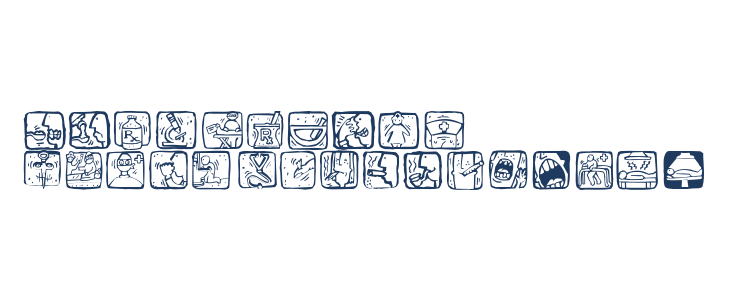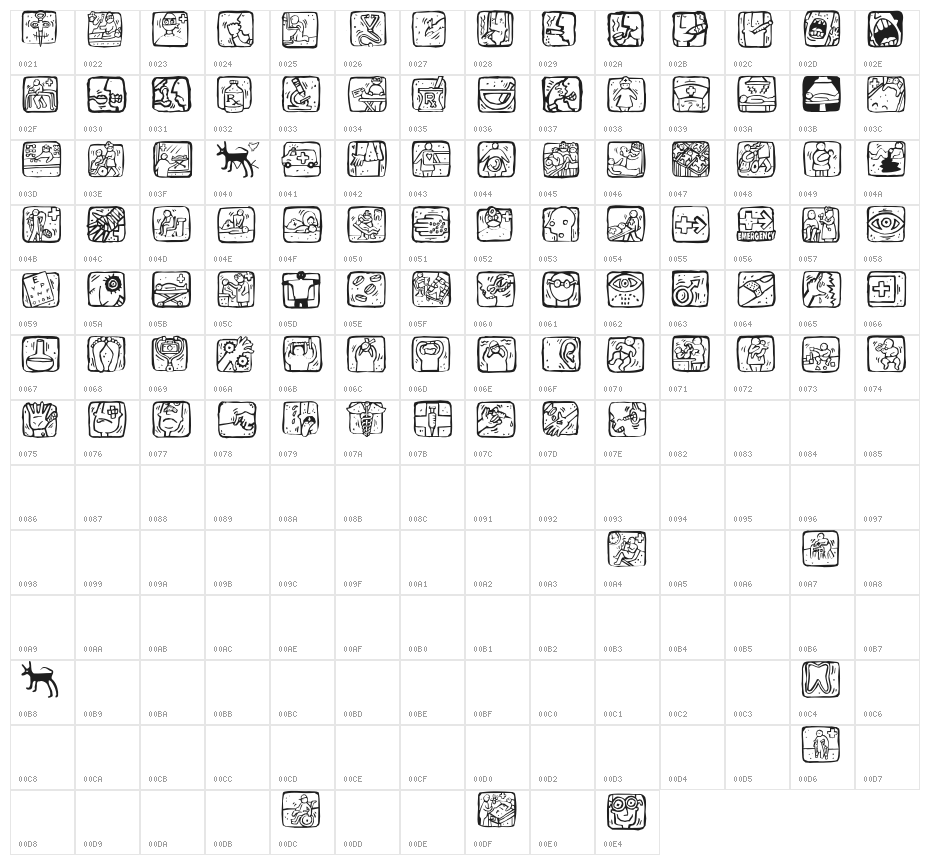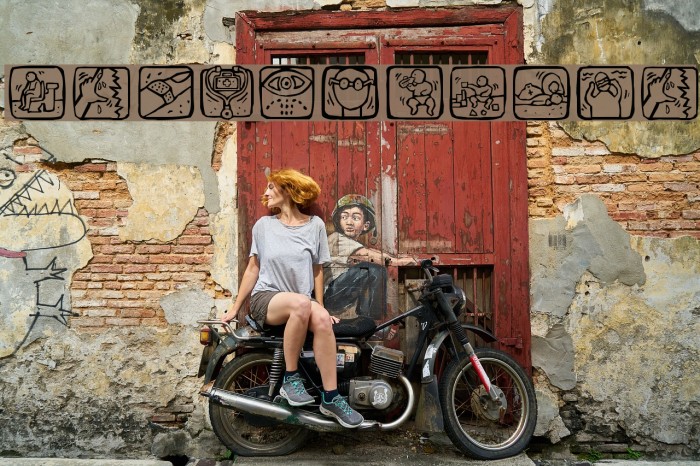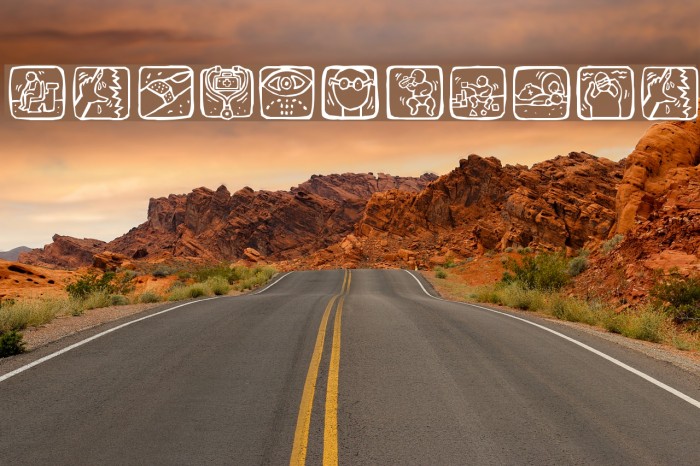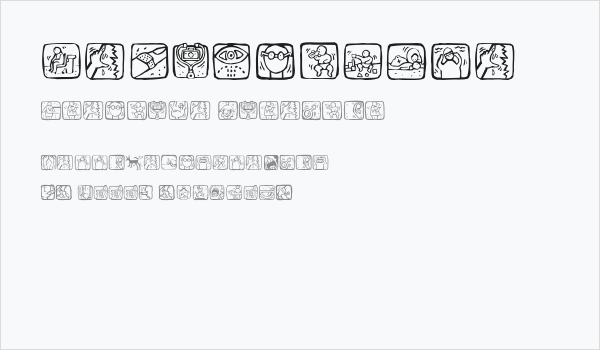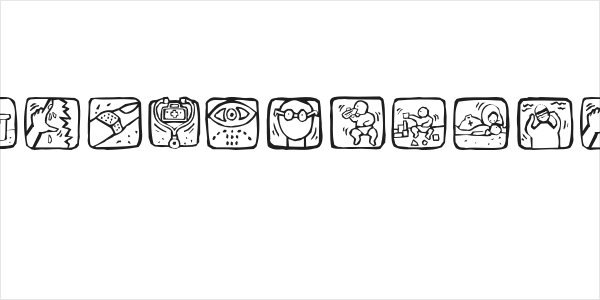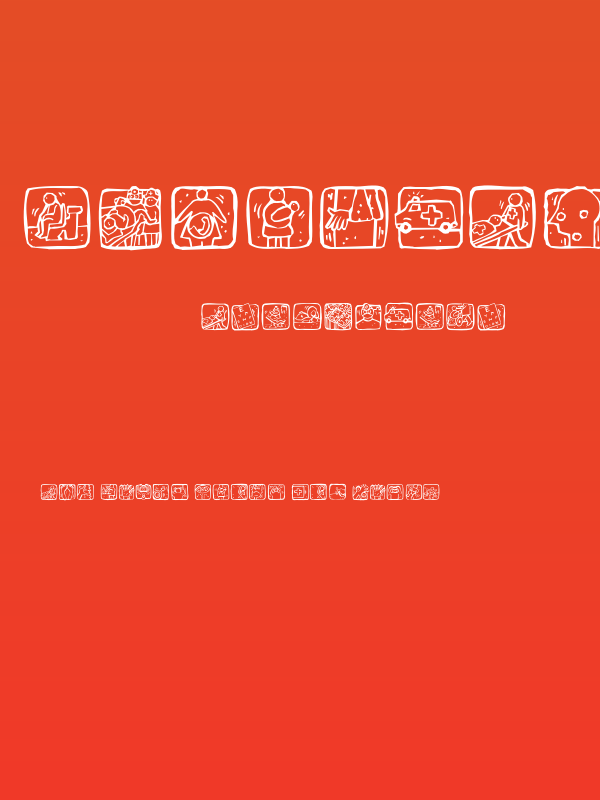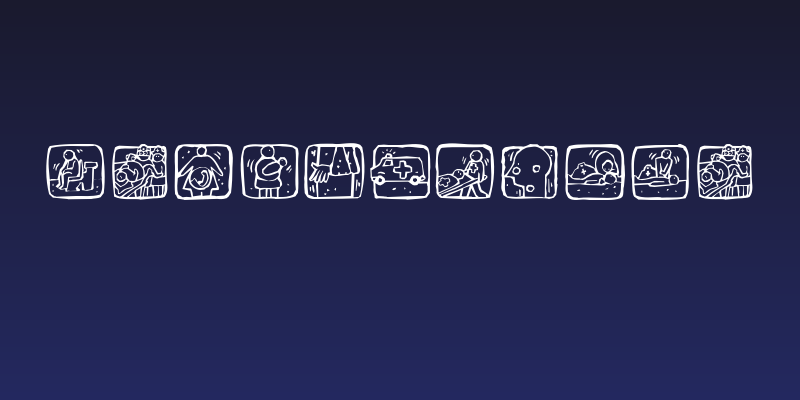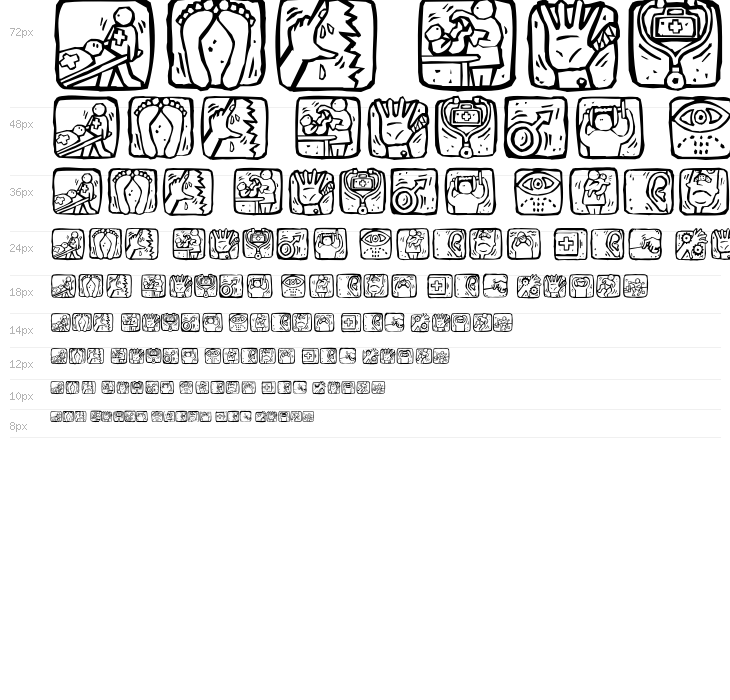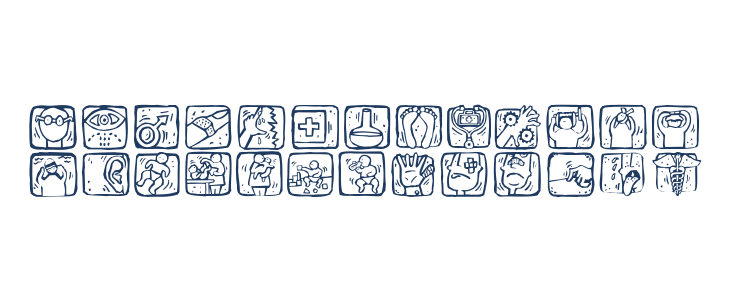
MedibatsOne Font
MedibatsOne Description
This font is a playful and illustrative collection of medical-themed icons, each enclosed within a square. The designs are hand-drawn, featuring a variety of medical symbols such as stethoscopes, syringes, and emergency signs. Each character is distinct, with a whimsical and cartoonish style that adds a light-hearted touch to the otherwise serious theme. The lines are bold and slightly irregular, giving a handcrafted feel. The icons are detailed yet simple enough to be easily recognizable, making them suitable for educational or themed projects.
| Overall Style | Playful, Illustrative |
| Use Case | Logos, Educational materials, Themed presentations |
| Proposed Projects | Ideal for educational materials, health-themed presentations, children's books, or playful medical branding. |